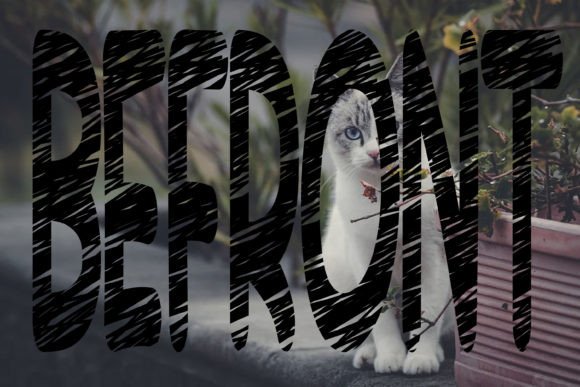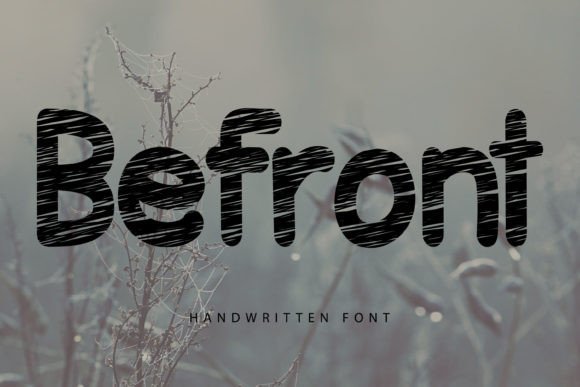
Befront Font: Add a Touch of Whimsy to Your Designs
Are you tired of using the same old fonts in your designs? Look no further than Befront Font, a fun and quirky handwritten font that’s perfect for crafty ideas. With Befront, you can add a touch of personality to your projects and make them stand out from the crowd.
Befront Font is a unique and playful handwritten font that’s designed to add a dash of whimsy to your designs. Its quirky and irregular shape makes it perfect for creating eye-catching titles, headings, and text that will grab attention. Whether you’re a designer, crafter, or DIY enthusiast, Befront Font is a great addition to your font collection.
- Unique and Playful**: Befront Font has a one-of-a-kind look that’s sure to add a touch of personality to your designs. Its playful and irregular shape makes it perfect for creating fun and eye-catching text.
- Versatile**: Befront Font is incredibly versatile, making it suitable for a wide range of design projects. Whether you’re creating a craft project, designing a logo, or making a social media graphic, Befront Font is a great choice.
- Easy to Read**: Despite its quirky shape, Befront Font is surprisingly easy to read. This makes it perfect for creating titles, headings, and text that needs to be read quickly and easily.
- Customizable**: With Befront Font, you can use any ideas you like and make them look great. Whether you’re creating a handmade card, a DIY sign, or a professional design project, Befront Font is a great choice.
- Pair it with Other Fonts**: Befront Font looks great when paired with other fonts. Try pairing it with a clean and simple font to create a striking contrast.
- Use it for Headings and Titles**: Befront Font is perfect for creating eye-catching headings and titles. Use it to add a touch of personality to your designs and make them stand out.
- Add it to Your Craft Projects**: Befront Font is a great addition to any craft project. Use it to add a personal touch to your handmade cards, DIY signs, and other crafty creations.
- Stand Out from the Crowd**: With Befront Font, you can create designs that stand out from the crowd. Its unique and playful shape makes it perfect for creating eye-catching text that grabs attention.
- Add a Personal Touch**: Befront Font is a great way to add a personal touch to your designs. Its quirky and irregular shape makes it perfect for creating handmade-style text that looks like it was written with love.
- Perfect for Crafty Projects**: Befront Font is a great choice for crafty projects. Use it to add a touch of personality to your handmade cards, DIY signs, and other crafty creations.
In conclusion, Befront Font is a fun and quirky handwritten font that’s perfect for crafty ideas. Its unique and playful shape makes it perfect for creating eye-catching titles, headings, and text that will grab attention. Whether you’re a designer, crafter, or DIY enthusiast, Befront Font is a great addition to your font collection. So why not give it a try and see the difference it can make in your designs?
With Befront Font, you can use any ideas you like and make them look great. Its versatility, ease of use, and customizable nature make it a great choice for a wide range of design projects. So go ahead, get creative, and enjoy the results!